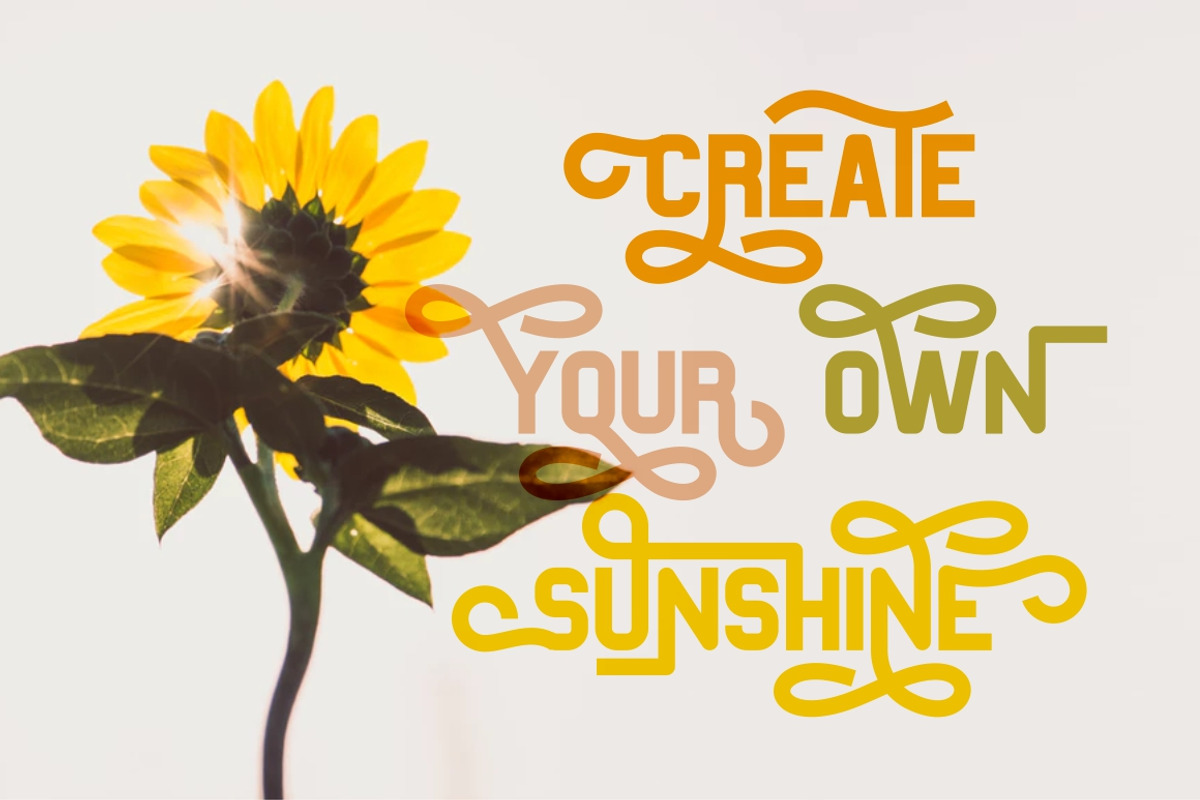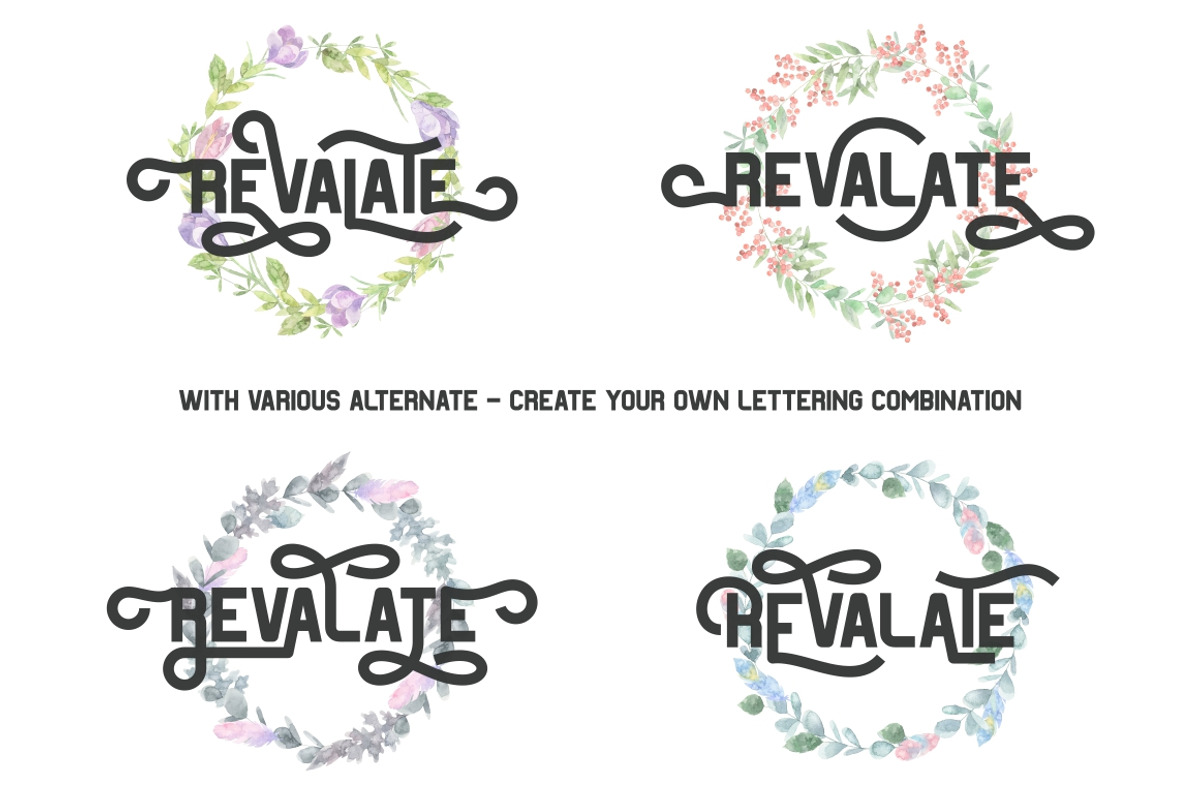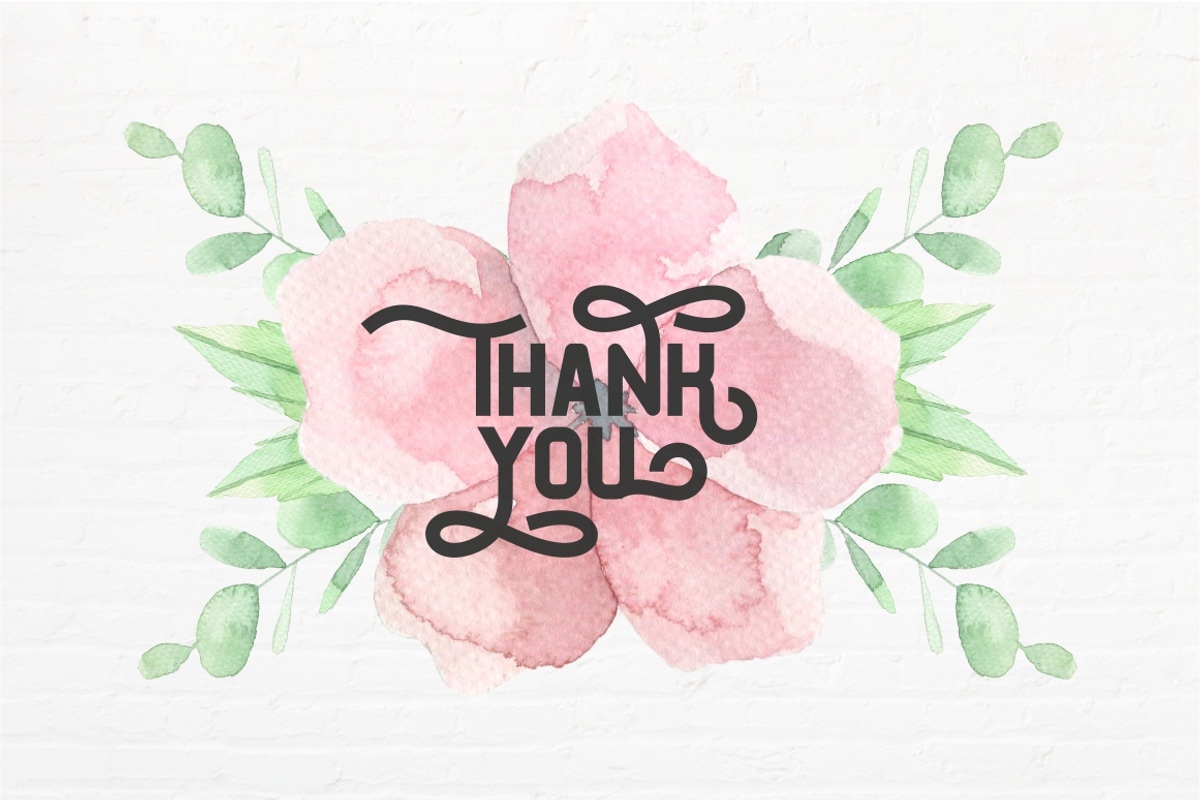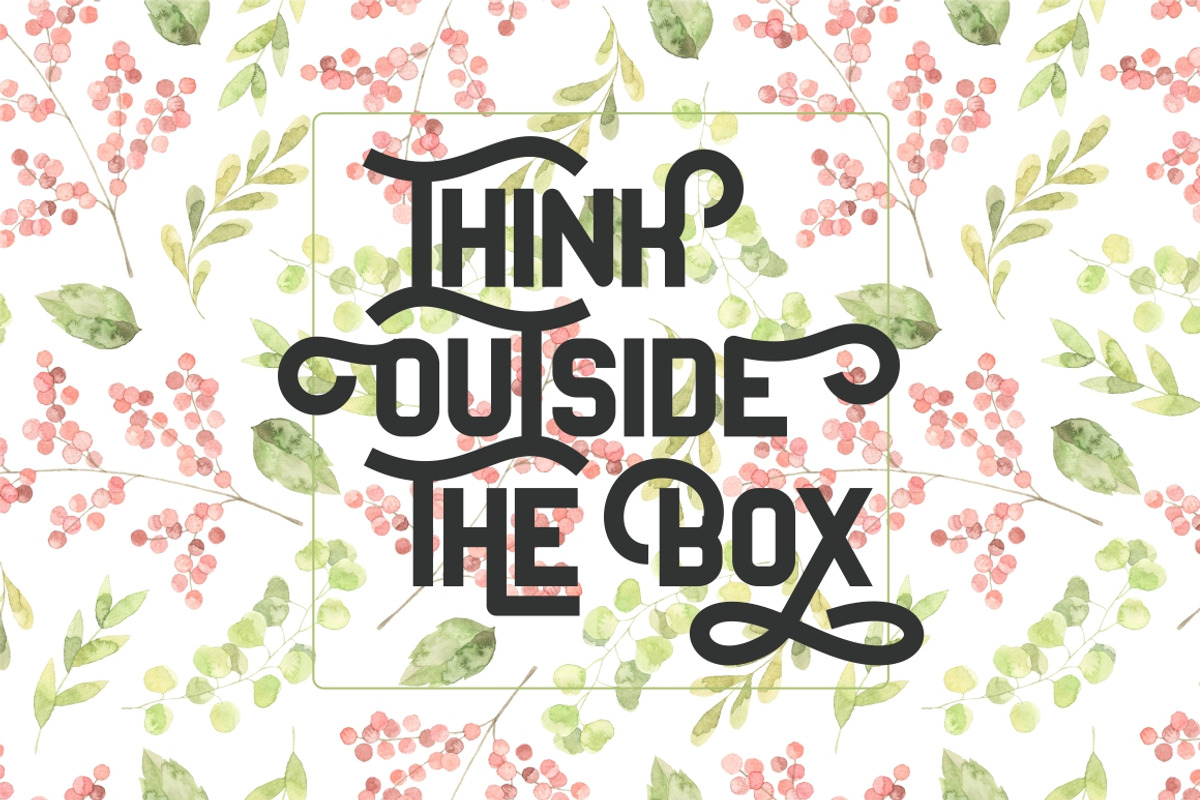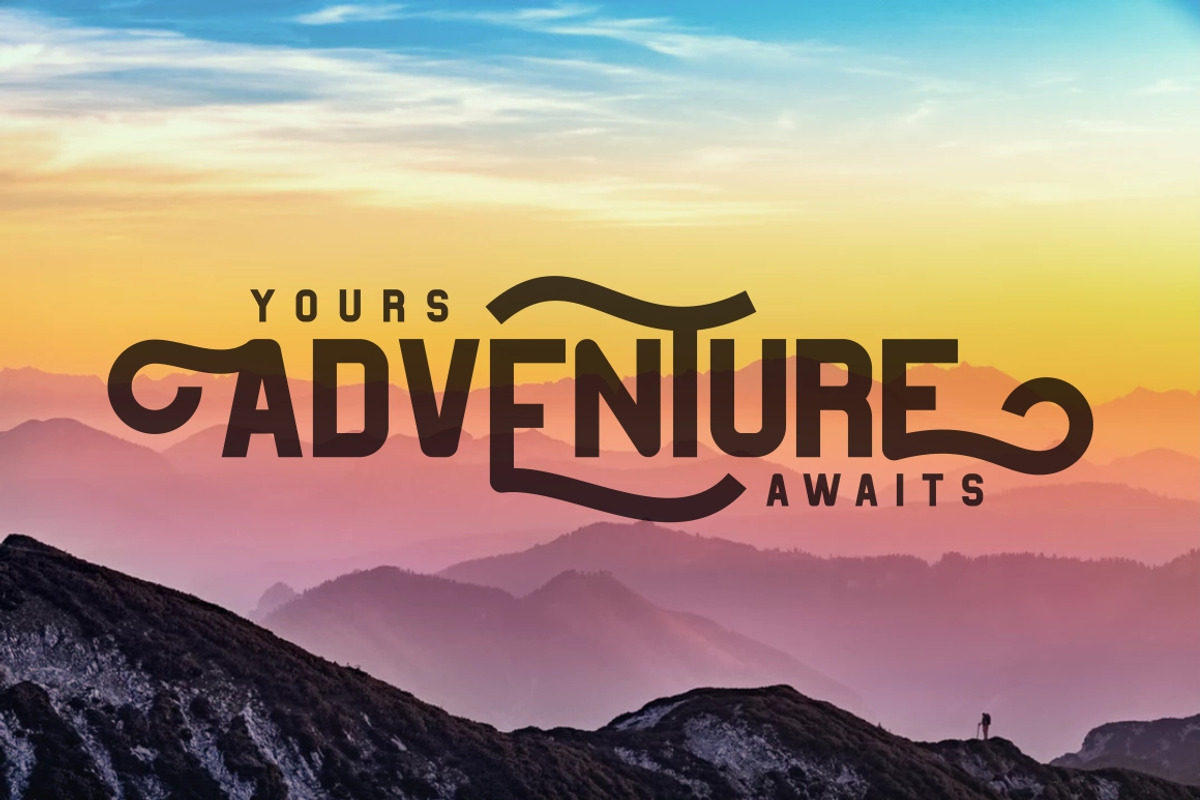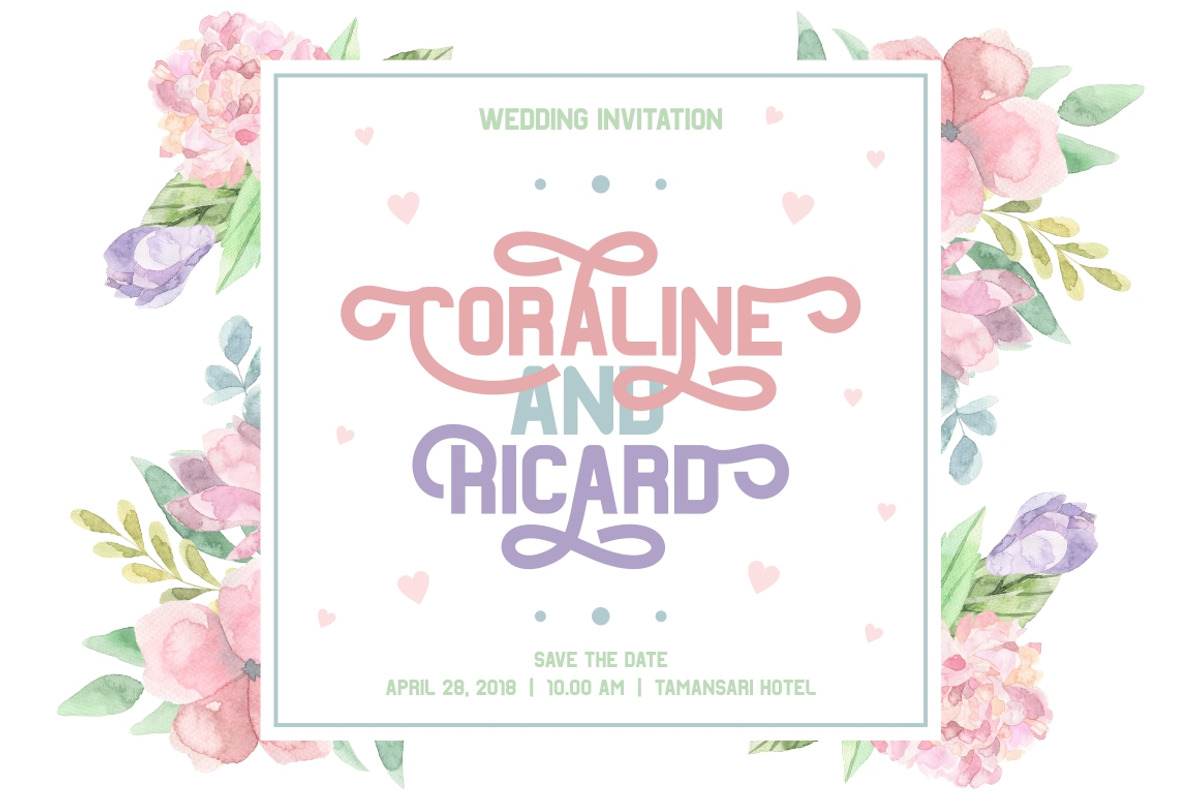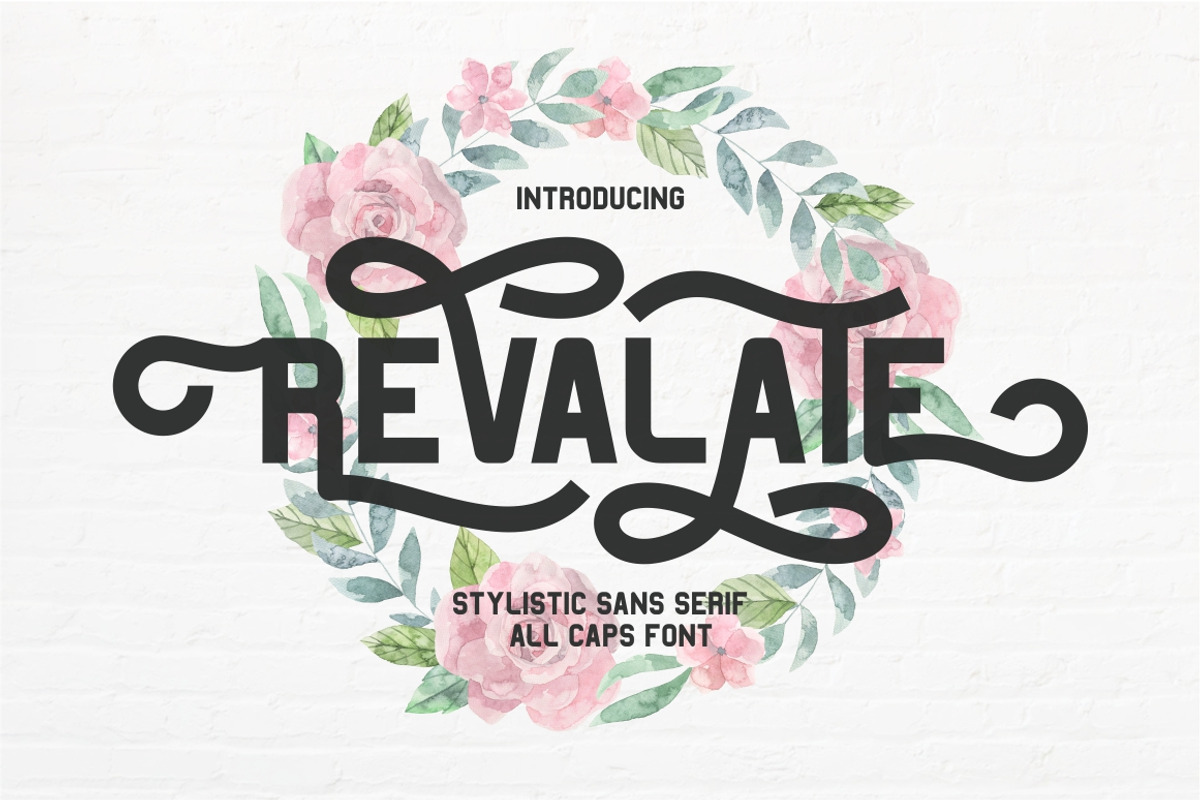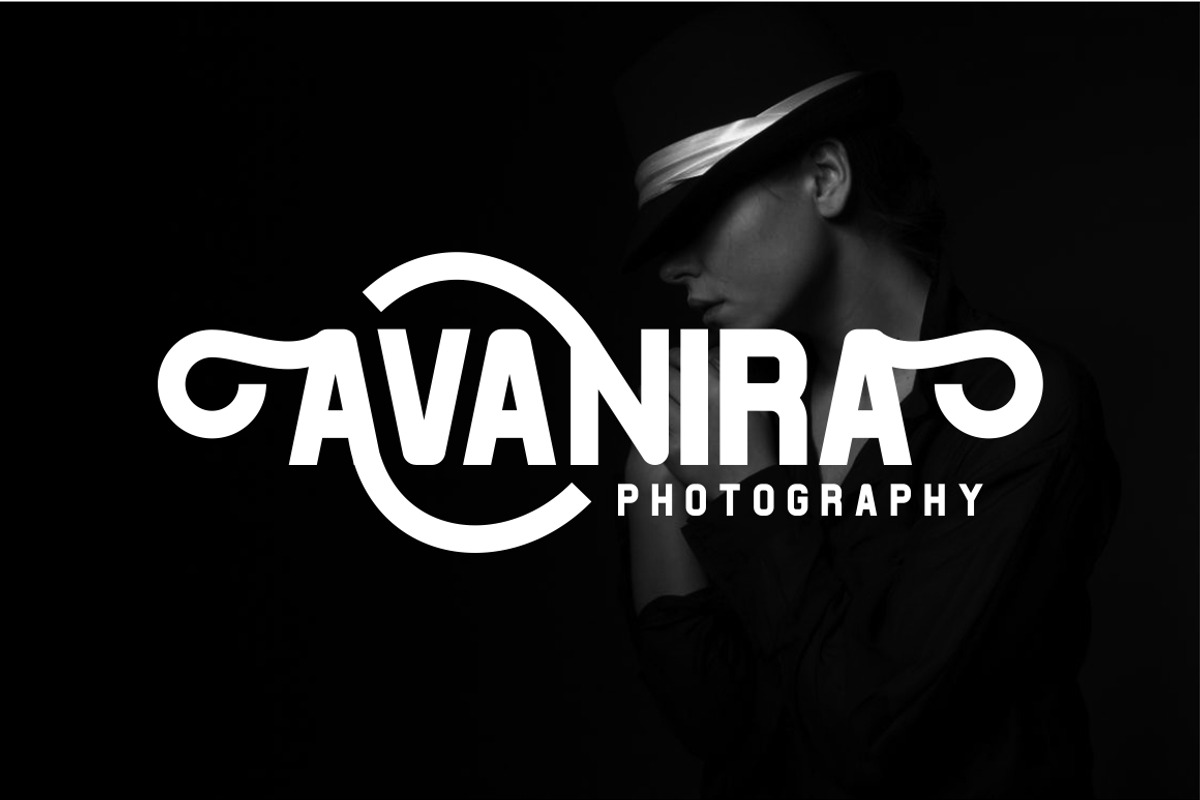
Revalate - Stylistic Sans Serif
Introducing!! REVALATE
REVALATE is a stylistic display sans serif typeface. All alphabet of this typeface is uppercase (allcaps) and each alphabet have 4 - 20 alternate. Suitable for Logos, Tittle, tagline, Tshirt, Handwritten Quotes, product packaging, poster, merchandise, social media, labels, branding, greeting cards, etc.
Comes with feature :
- Number, Punctuation And Symbols
_ Multilanguage Support.